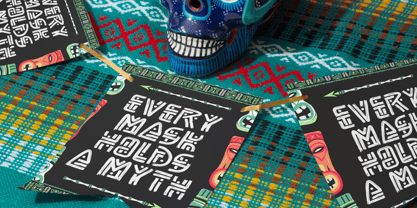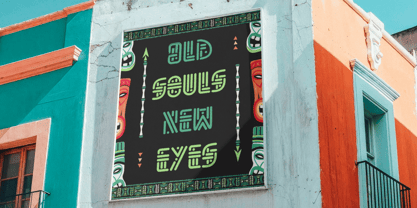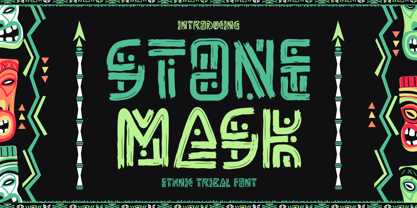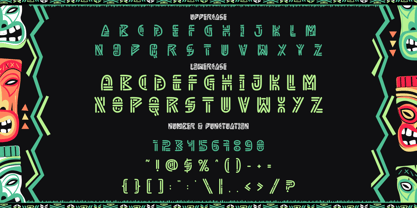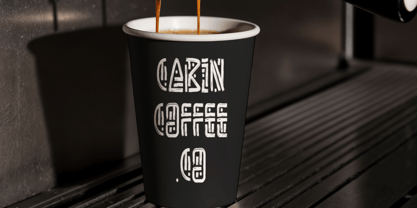
Stone Mask
by Shanaf
The Stone Mask Font Family was designed by Yesie Erma Yunita and published by Shanaf. Stone Mask contains 1 styles. More about this family
Stone Mask Ethnic Tribal Font is a bold and decorative typeface inspired by traditional tribal carvings, ethnic symbols, and handcrafted art. Each letterform is designed with rough strokes and geometric cuts that reflect the essence of stone masks and cultural artifacts. The characters combine straight lines with abstract ethnic details, creating a font that feels both ancient and artistic. With uppercase, lowercase, numbers, and punctuation included, this font offers versatility for both digital and print projects.
This font is perfect for logos, posters, packaging, branding, and invitations that need a touch of heritage and tradition. Its strong tribal aesthetic makes it suitable for cultural events, craft products, movie titles, or even coffee shop branding with an ethnic theme. The decorative layout and hand-carved look add authenticity to any design project. Whether used for bold titles, stickers, greeting cards, or book covers, Stone Mask ensures your message stands out with cultural depth and visual strength.
Designers: Yesie Erma Yunita
Foundry: Shanaf